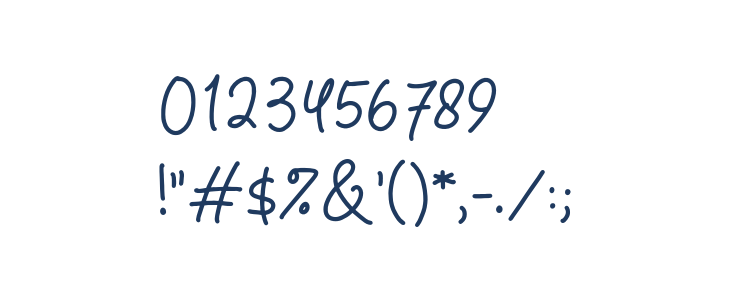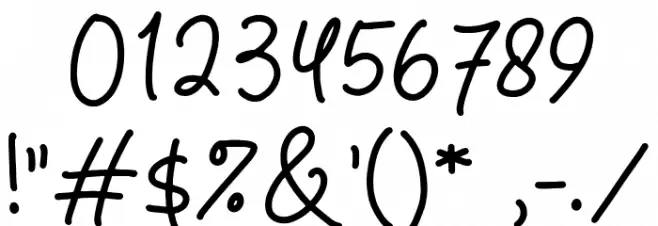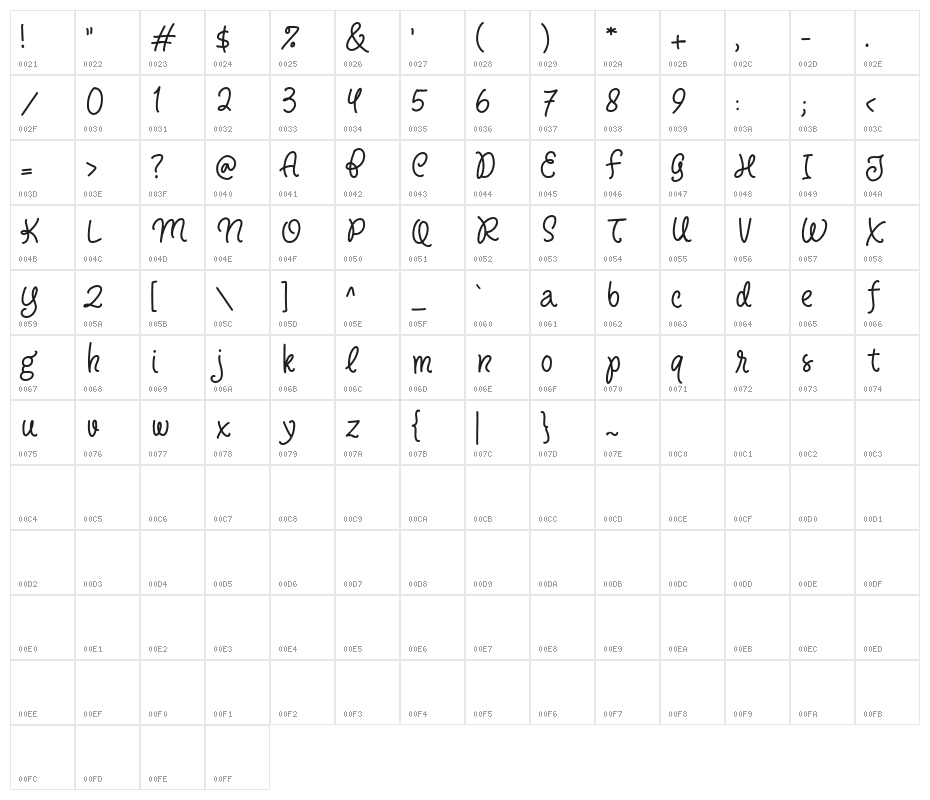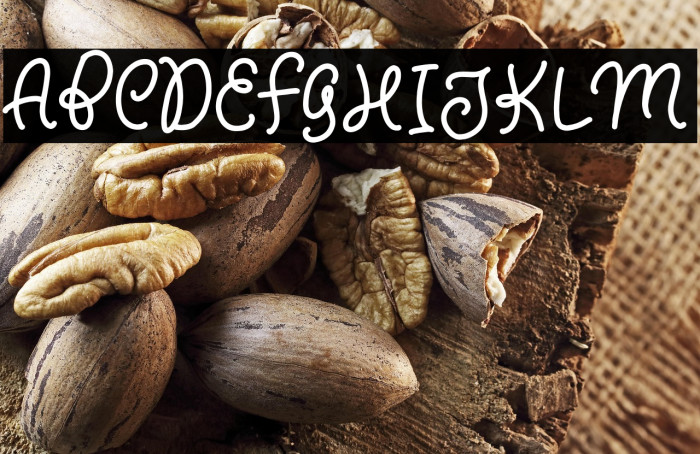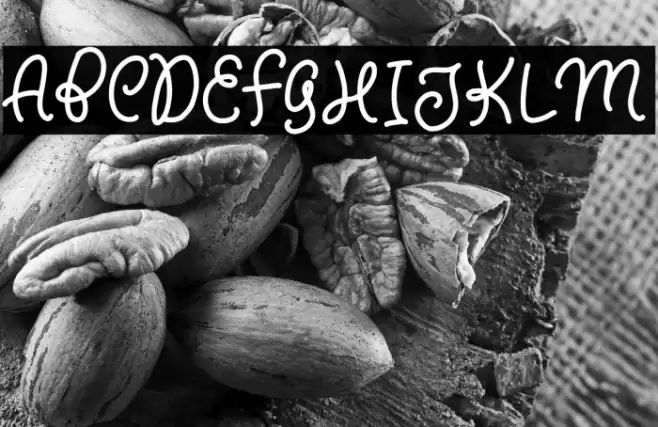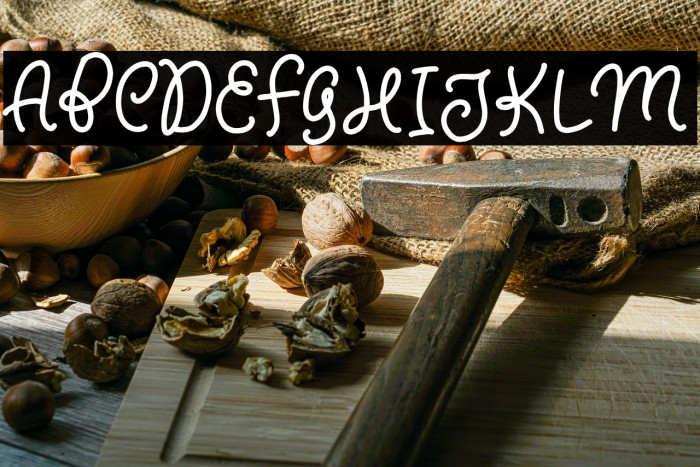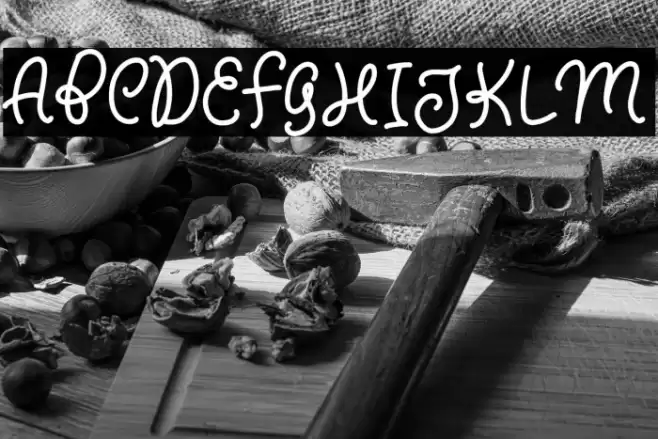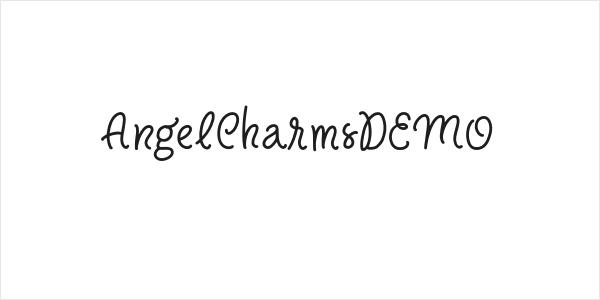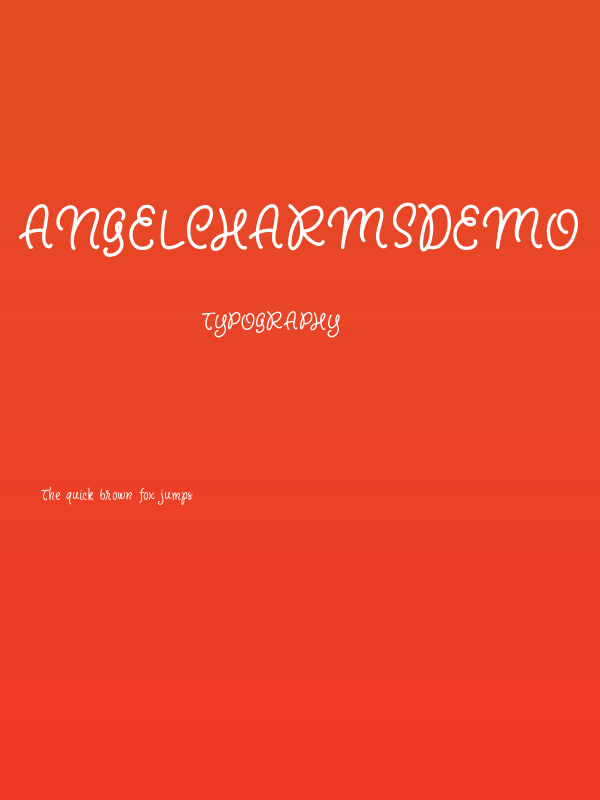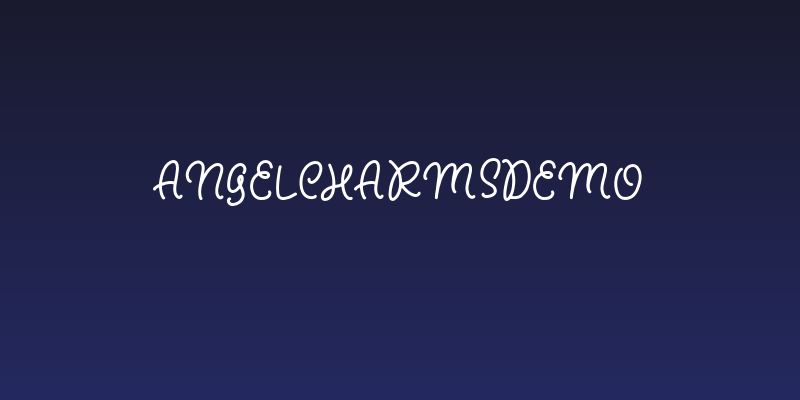
AngelCharmsDEMO Font
This font features a playful and whimsical handwritten style, characterized by smooth, flowing curves and a casual aesthetic. The uppercase letters are slightly larger and more pronounced, while the lowercase letters maintain a consistent flow, enhancing readability. The numerals are distinct and easy to distinguish, complementing the overall style. Special characters are creatively integrated, maintaining the font's cohesive look. This font's design is ideal for projects that require a personal touch, such as invitations, greeting cards, or creative branding.
| Use Case | Headlines, Logos, Invitations |
| Proposed Projects | Ideal for invitations, greeting cards, personal branding, and creative projects. |